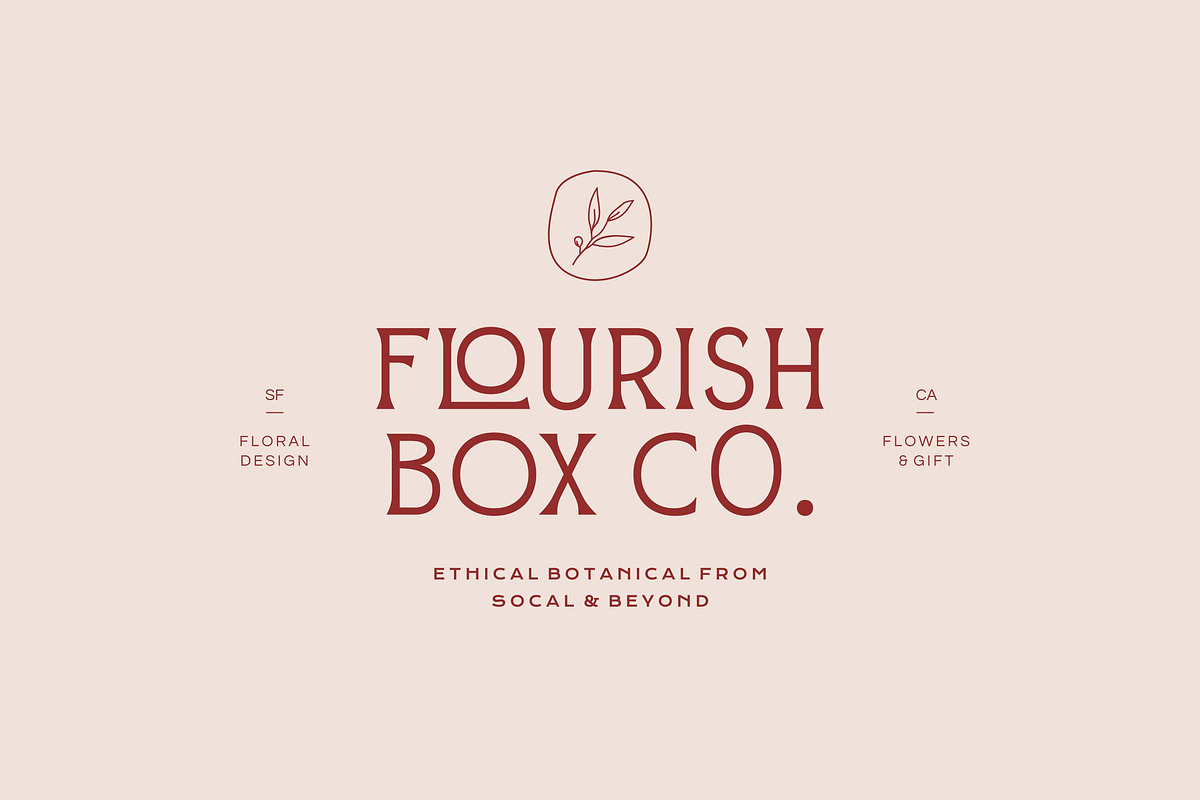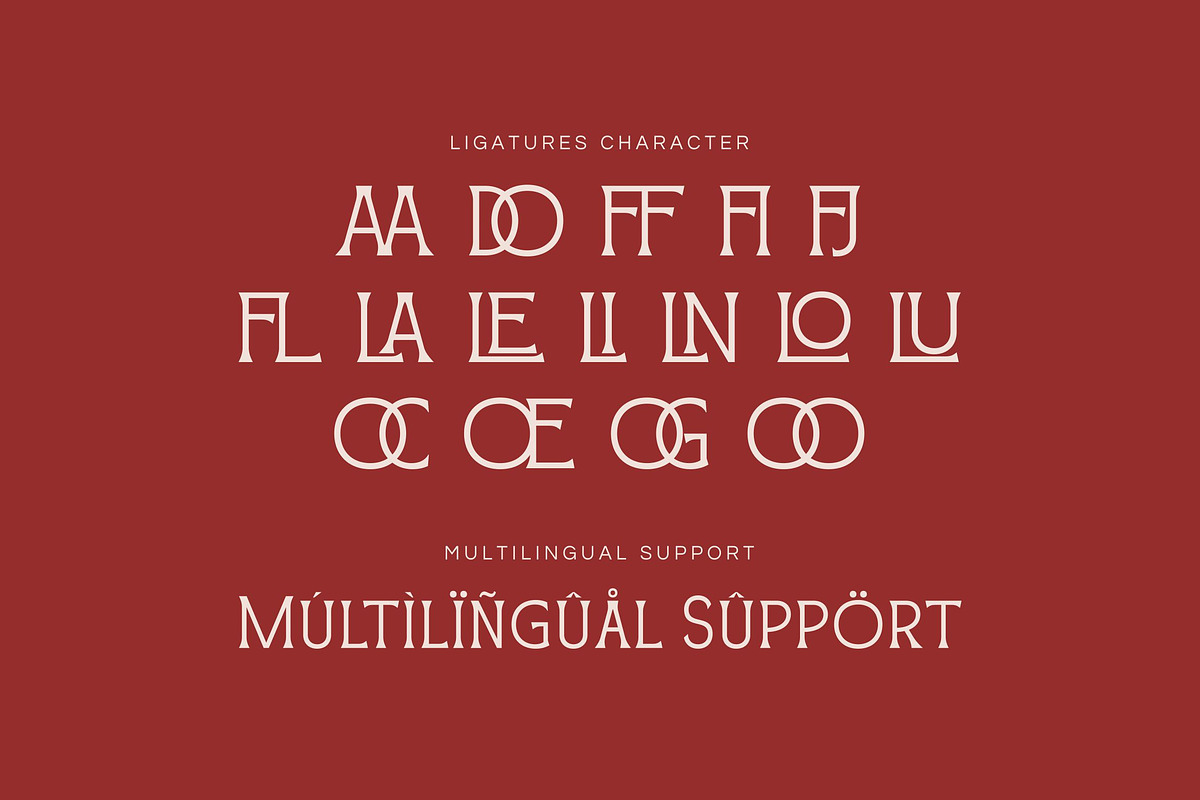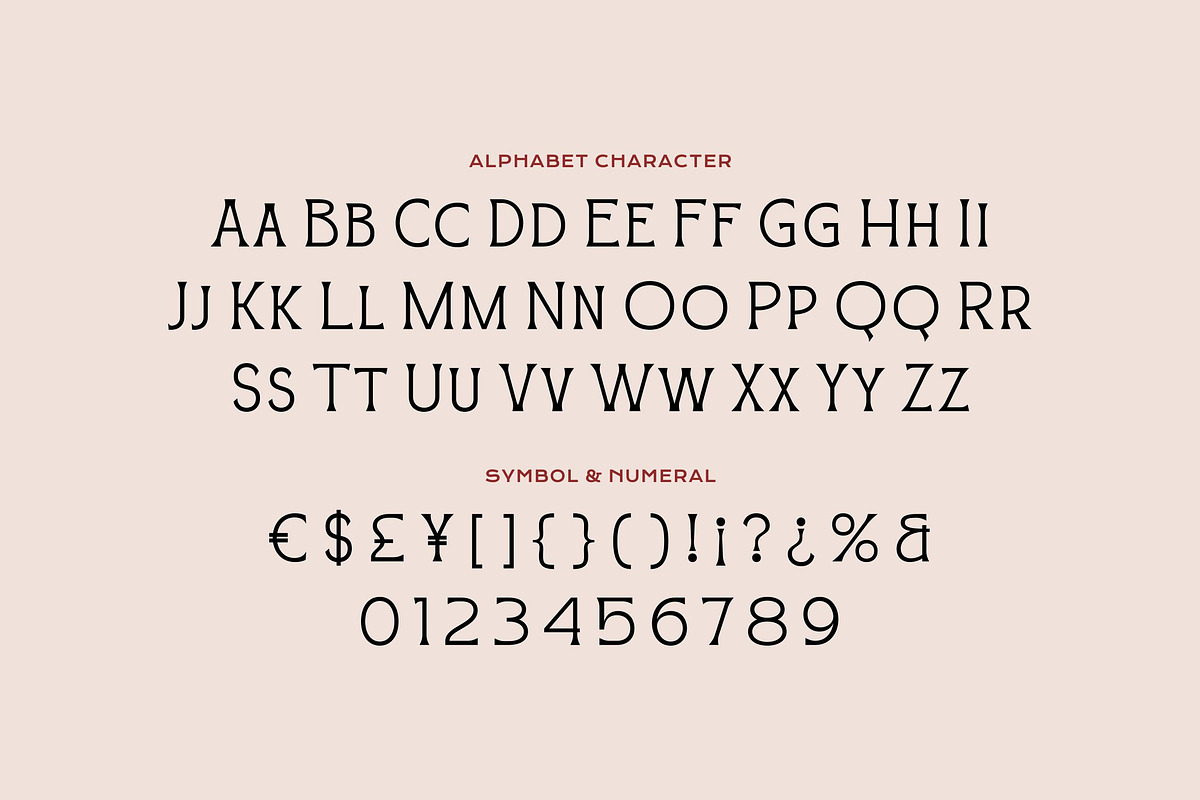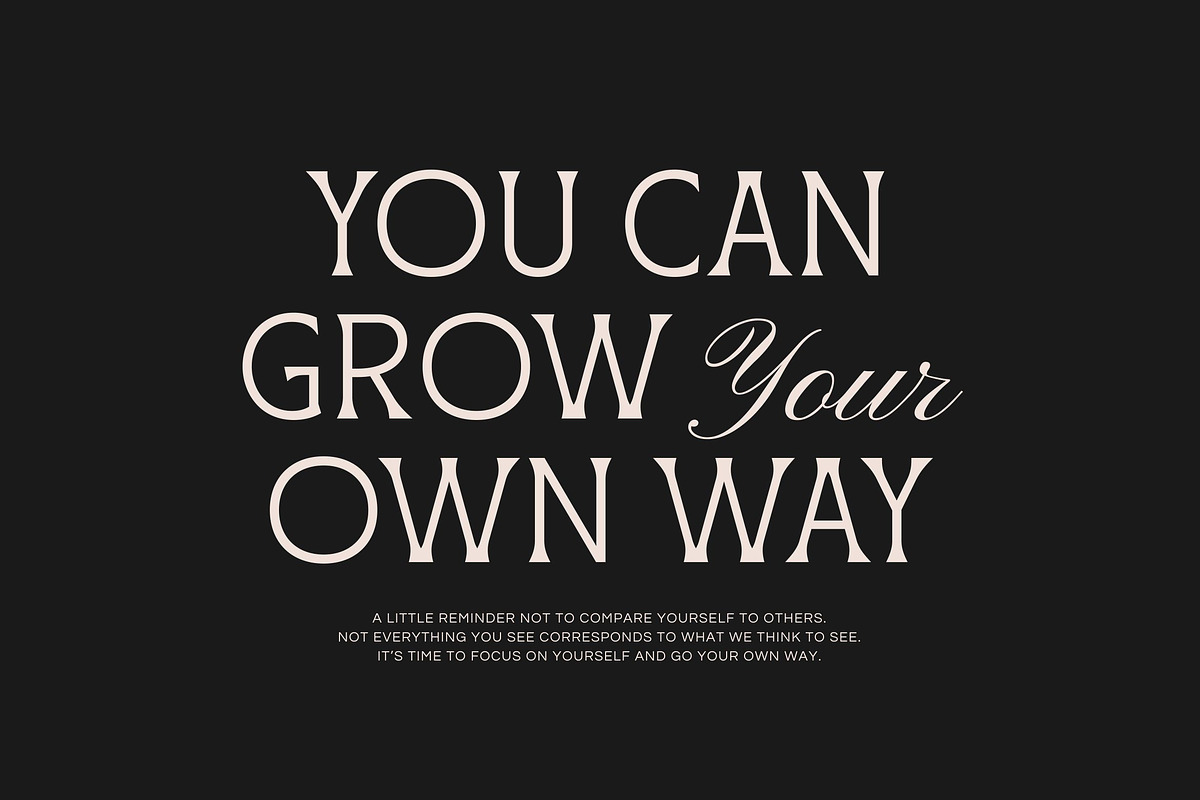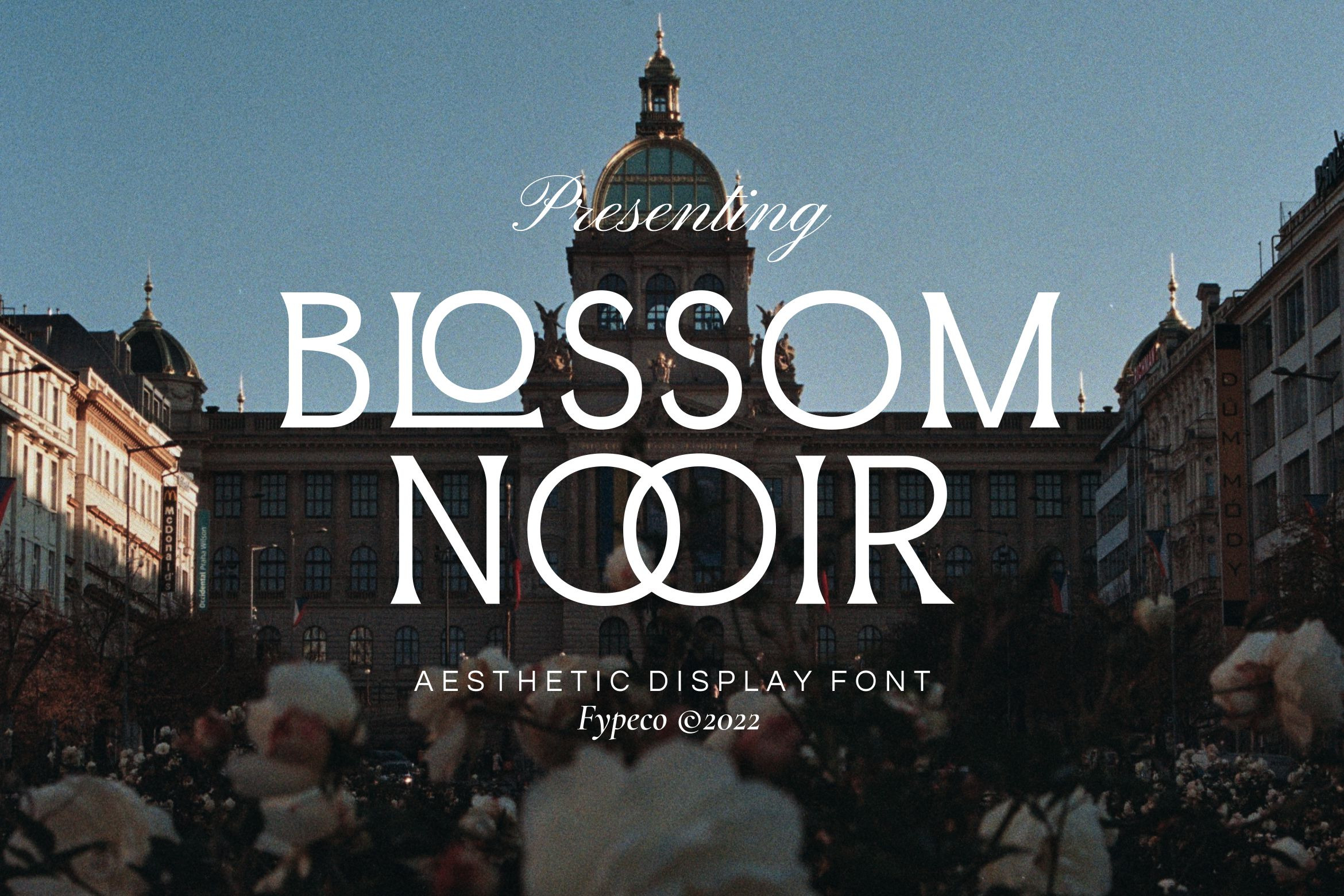
Blossom Noir -Aesthetic Display Font
Blossom Nooir is aesthetic display font with ligatures. Perfect for a stunning logos, quotes, Invitation, posts, blog posts. branding projects, magazine imagery, typography and much more.